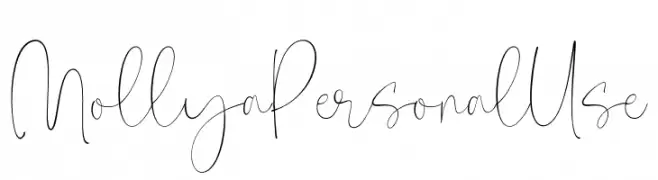
An elegant, flowing script font with delicate strokes and graceful curves.
An elegant script font with flowing, cursive style and delicate swirls.
A delicate and flowing script font with elegant, fluid letterforms.
A graceful script font with flowing, delicate strokes and elegant flourishes.
A delicate, flowing script font with elegant cursive letterforms.
A delicate and elegant script font with a natural handwritten style.
A delicate, handwritten script font with elegant, flowing lines.
An elegant, flowing script font with smooth, continuous strokes and delicate curves.
A graceful, cursive script font with flowing, connected characters and delicate strokes.
An elegant and sophisticated cursive script font with flowing curves and delicate loops.